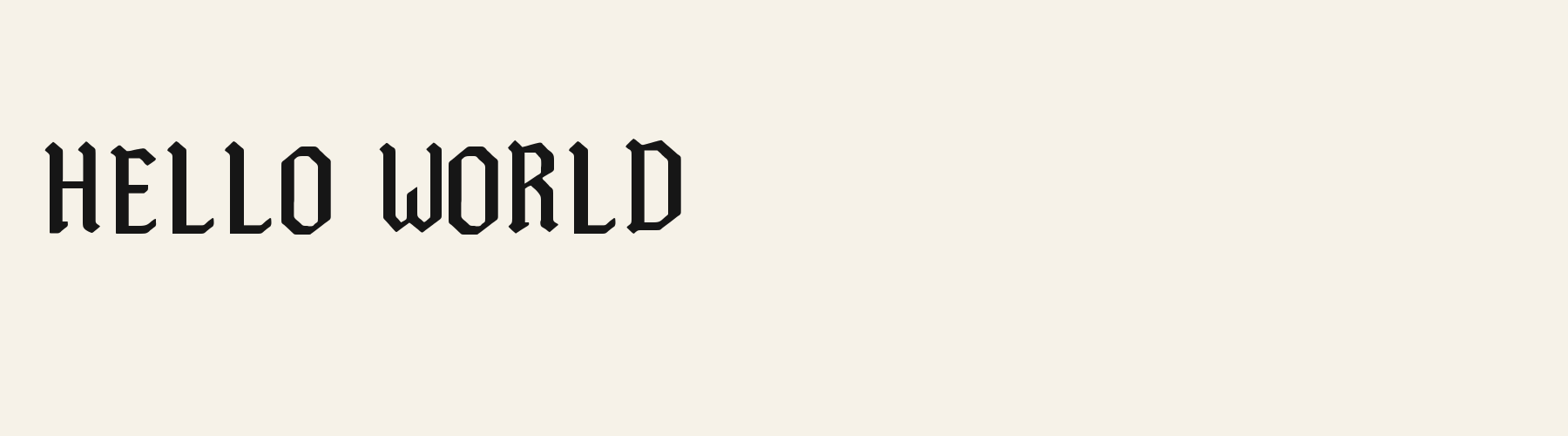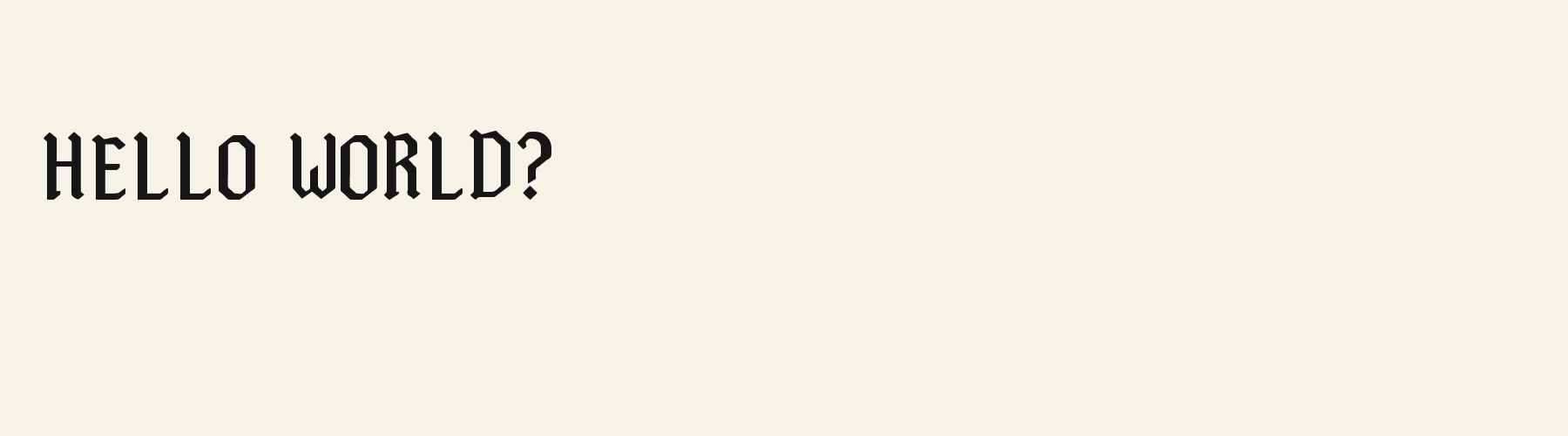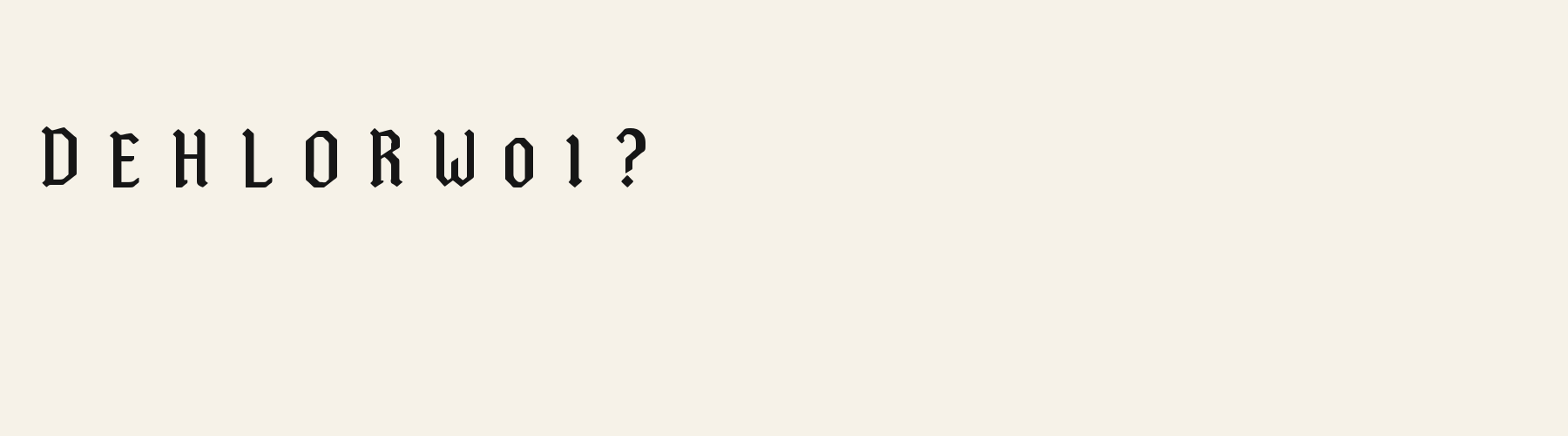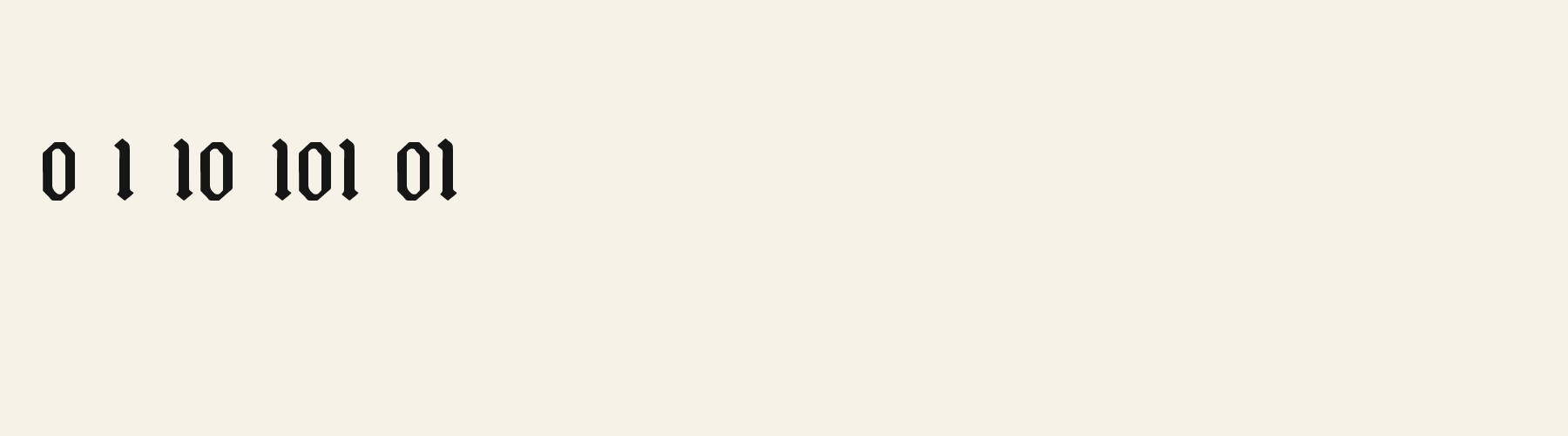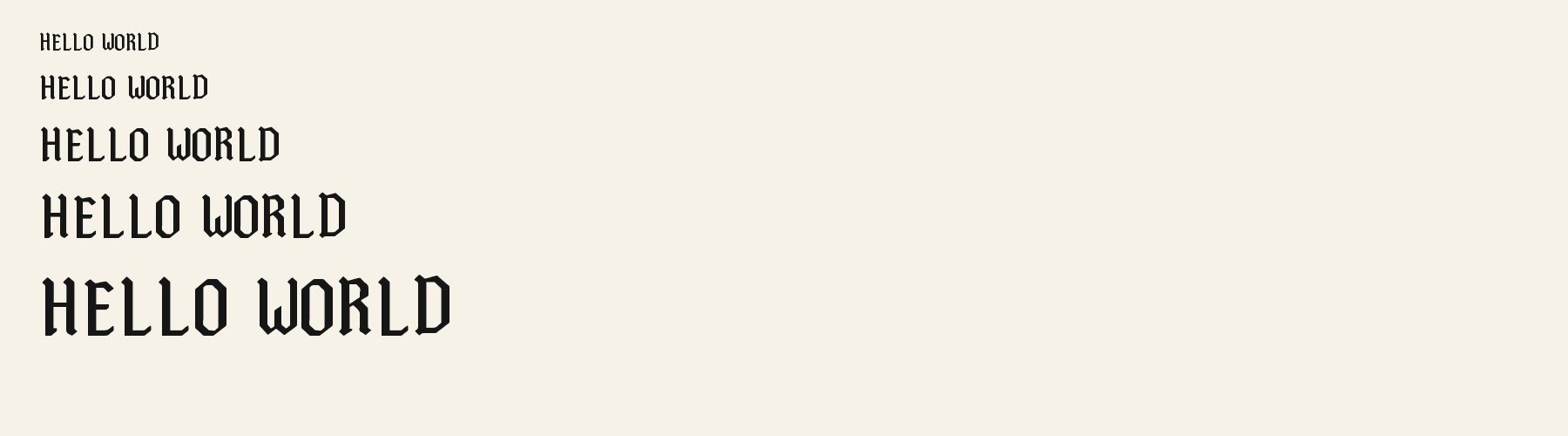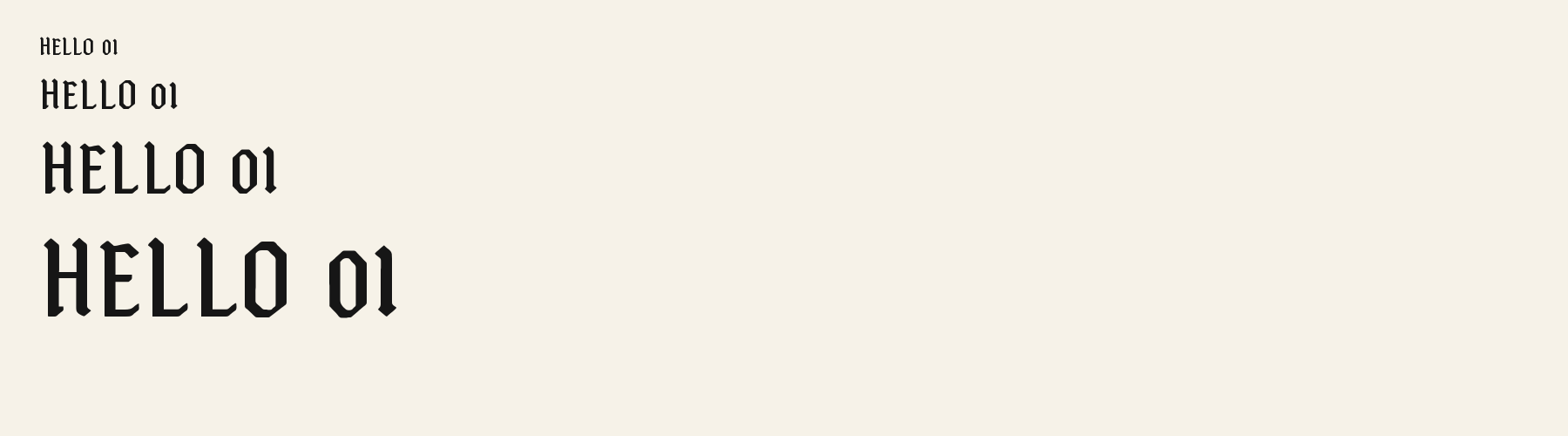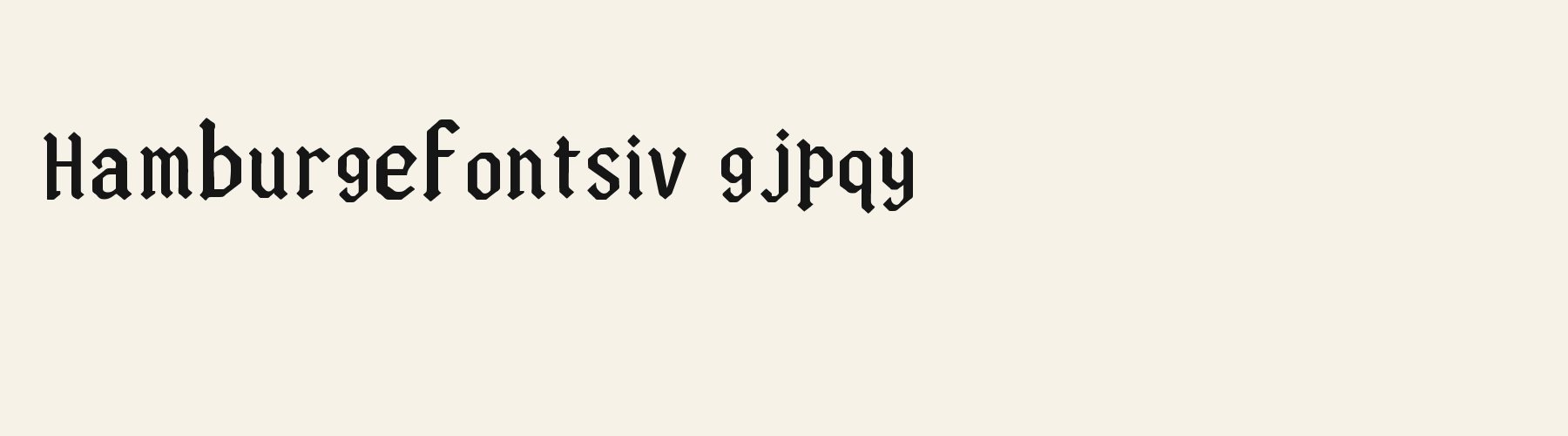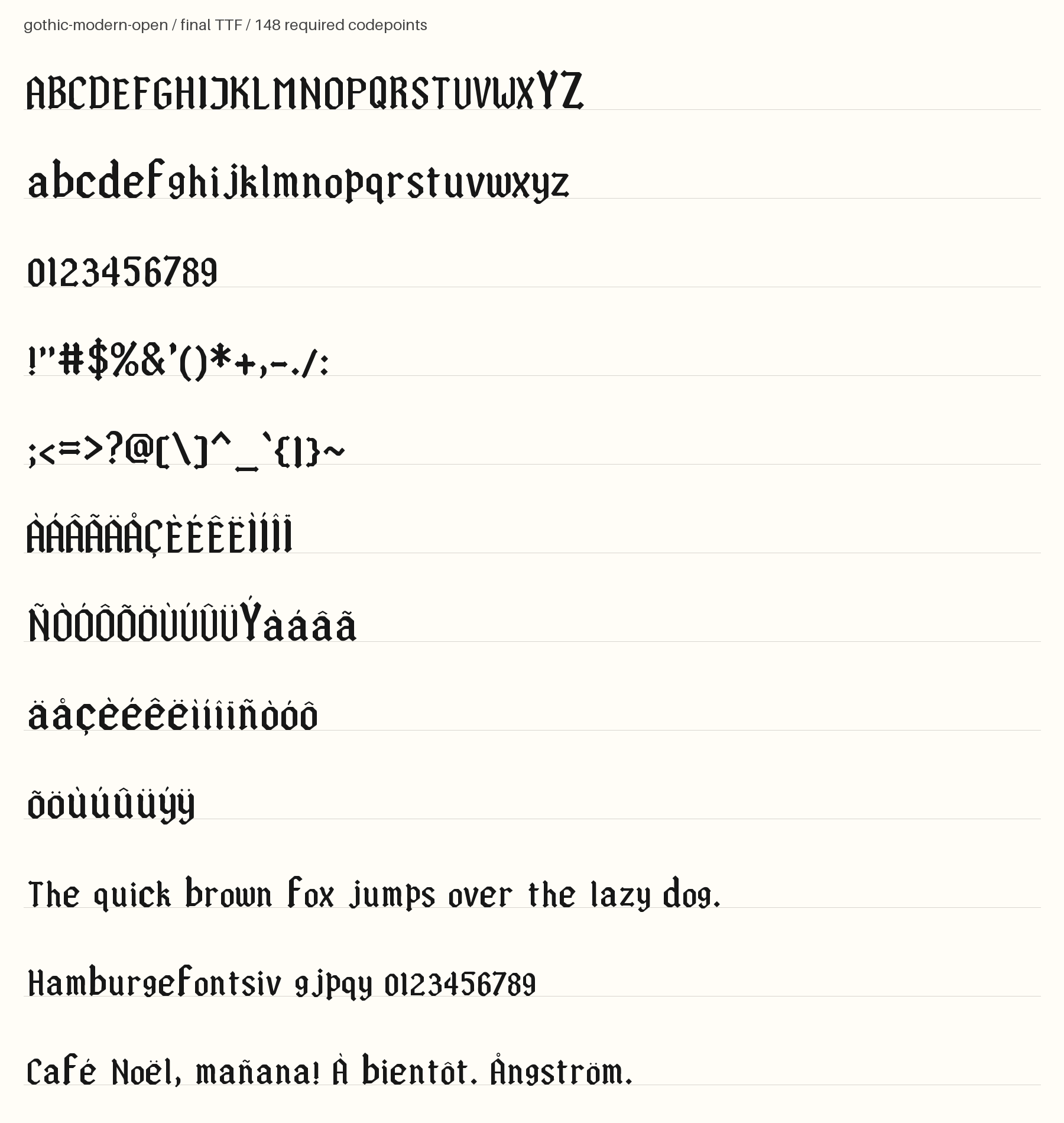
Gothic Fraktur Split
Gothic Modern Open is a contemporary brand headings. Medium uniform angular strokes, chamfered corners and short terminals. Best for contemporary brand headings.
Includes all 95 printable Basic Latin characters and 148 glyphs in total.
Verified language coverage: English (Basic Latin)